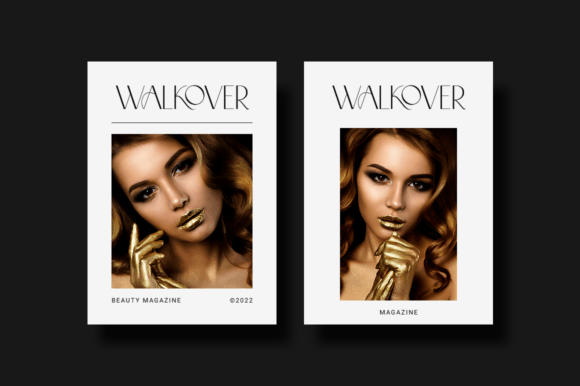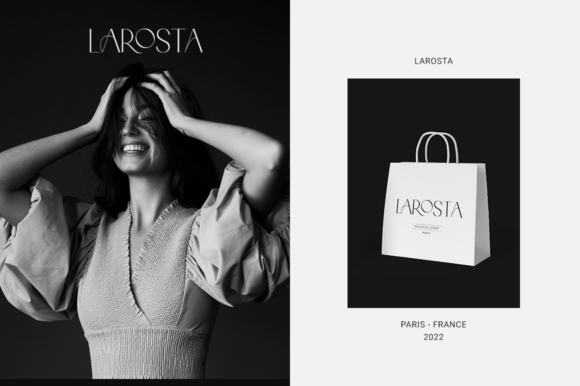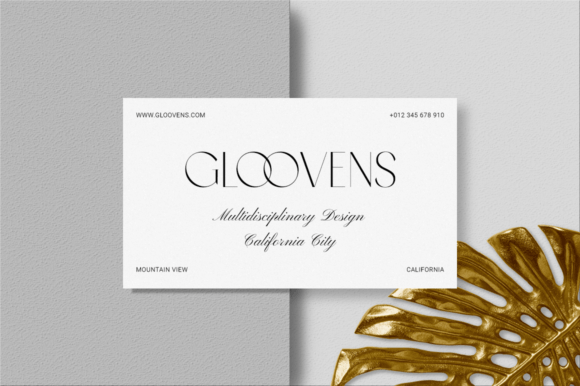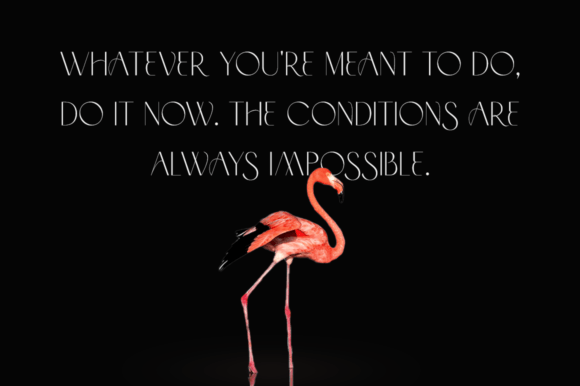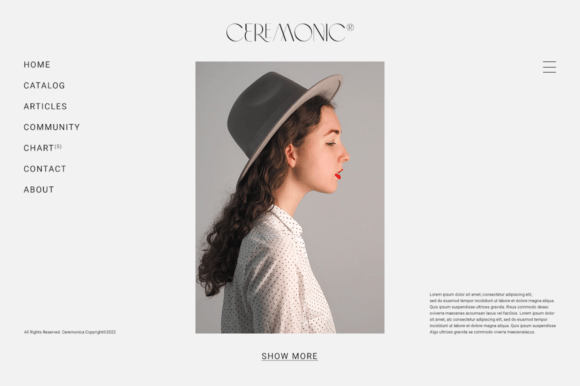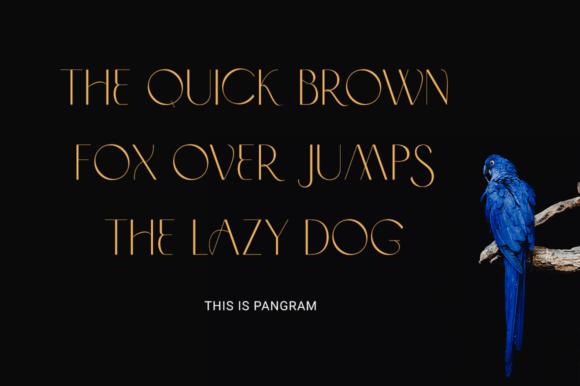
Introduction to Problack Font
Have you ever been working on a creative project, pouring your heart and soul into it, only to be held back by the wrong font? We’ve all been there – the excitement of a new idea, the frustration of a poorly chosen design element. But what if I told you that there’s a game-changing font that could elevate your crafting ideas to the next level? Enter the Problack Font, a stunning sans-serif font that’s sure to make your designs shine.
As a valuable design resource, the Problack Font is perfect for anyone looking to add a touch of elegance to their creative projects. Whether you’re working on a branding project, crafting custom labels, or designing beautiful cards, this font is sure to impress. And the best part? It’s available for free download, so you can get started right away.
With its high-quality design and transparent background, the Problack Font is a versatile tool that’s perfect for a wide range of applications. From digital designs to print materials, this font is sure to make your projects look extraordinary. So why settle for a mediocre font when you can have a Problack Font that truly stands out?
Key Features of Problack Font
- High-quality, professional font design suitable for various creative projects.
- Unique, modern design with a transparent background, allowing for easy customization and layering in design projects.
- Comes in a single weight, making it easy to use in various design contexts without worrying about font pairing.
Honest Review: Problack Font
As a designer, I’m always on the lookout for high-quality design resources to elevate my creative projects. Recently, I came across the Problack Font, and I must say, it’s a solid addition to my design arsenal.
Here are the things that work well for me: ✨ The Problack Font offers a clean and modern aesthetic, making it perfect for a wide range of creative projects, from digital designs to print materials. ✨ The font is highly customizable, allowing me to adjust the size, color, and style to suit my design needs. ✨ The transparent background option is a huge plus, as it makes it easy to combine with other design elements.
However, I do have a few gripes: ⚠️ The font library is a bit limited, with only a few styles to choose from. ⚠️ The free download option comes with some restrictions, such as limited usage rights.
Overall, I’d say the Problack Font is a great resource for designers who need a reliable, high-quality font for their creative projects. While it’s not perfect, its strengths outweigh its limitations, making it a valuable addition to my design toolkit.
- Great for modern and minimalist designs
Getting the Most Out of Problack Font
For a high-quality design, use Problack Font in combination with other high-quality design resources. Experiment with different font sizes, colors, and styles to find the perfect combination for your creative project. You can also use the font in conjunction with a transparent background for a modern and sleek look.
Problack Font is perfect for a wide range of design projects, including logos, brochures, business cards, and social media graphics. Its modern and sleek design makes it ideal for creative projects that require a high-quality and professional look.